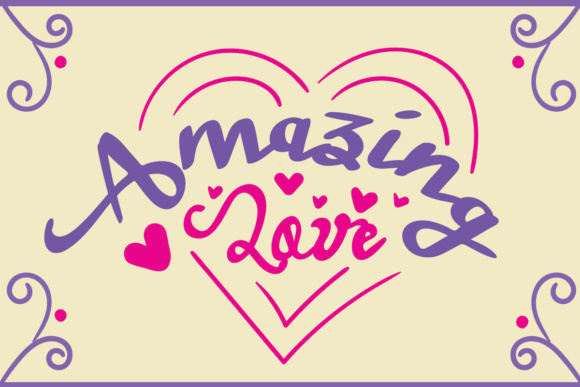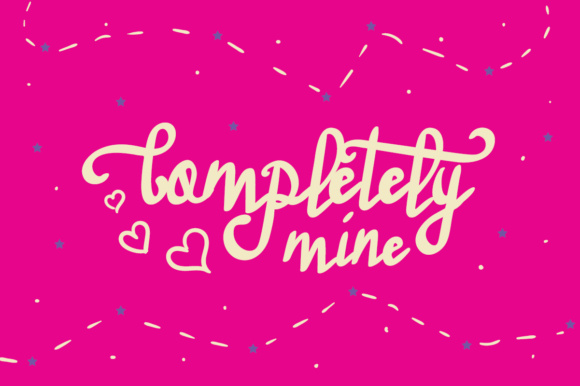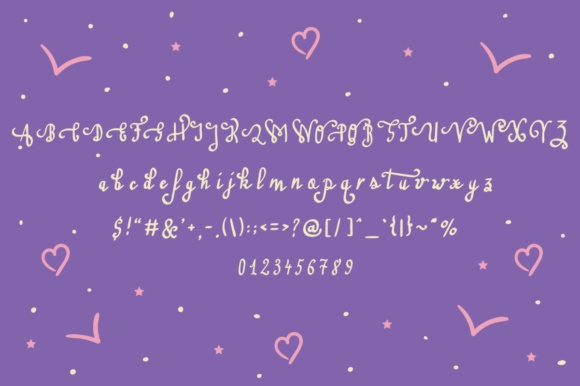
HomeScript FontsAmazing Love Font Script Fonts Amazing Love Font FacebookXPinterestWhatsApp Amazing Love Font Poster 2 Amazing Love Font Poster 3 About Amazing Love Font Amazing Love is a cutesy handwritten font with amazing swashes in the capitals. DOWNLOAD ON CREATIVE FABRICAThis font is sold and delivered by Creative Fabrica. Font Canyon may earn a commission if you buy through this link. People also explored Beliary Font Magic Glass Font Back to School Font Hostage Font Everly A Christmas Gathering Font Darling Font Stitka Font Surprise Font 339 0 TagsAmazing Love Font Previous articleEmelyne Script FontNext articleHarmonic Script Font LEAVE A REPLY Cancel reply Comment: Please enter your comment! Name:* Please enter your name here Email:* You have entered an incorrect email address! Please enter your email address here Website: Save my name, email, and website in this browser for the next time I comment. Personal Use Free Alista Font Personal Use Free Read more about this font Rolling Door Personal Use Free Read more about this font Lovetle Personal Use Free Read more about this font Breakaway Personal Use Free Read more about this font BLOG To increase your work productivity, choose the most readable fonts. In today's fast-paced work environment, where digital communication and information consumption are integral to our daily routines, the choice of fonts can significantly impact... Using Fonts in Digital Marketing: Tips to Strengthen Your Brand Identity Modern Sans-Serif Fonts That Brands Love in 2025 Where to Buy American Fonts Online in 2024